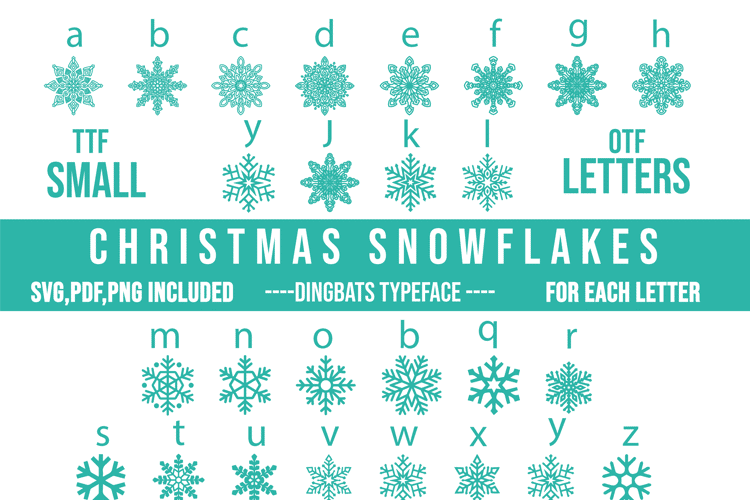
Christmas Snowflakes Font
๐จ Font Name: Christmas Snowflakes by Minimalist Art Studio
๐จ Font Description: Christmas Snowflakes is a decorative dingbat typeface featuring 63 unique snowflake glyphsโperfect for holiday cards, seasonal packaging, and winter-themed designs.